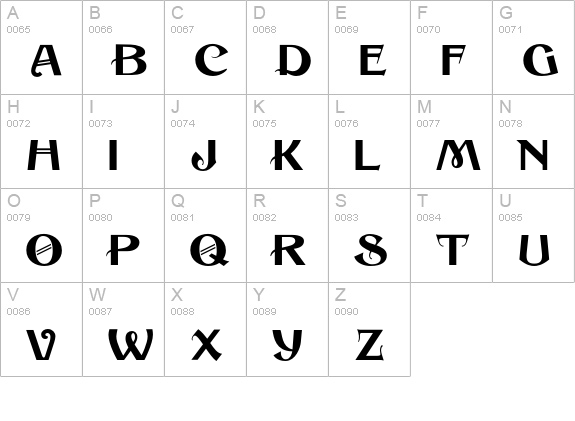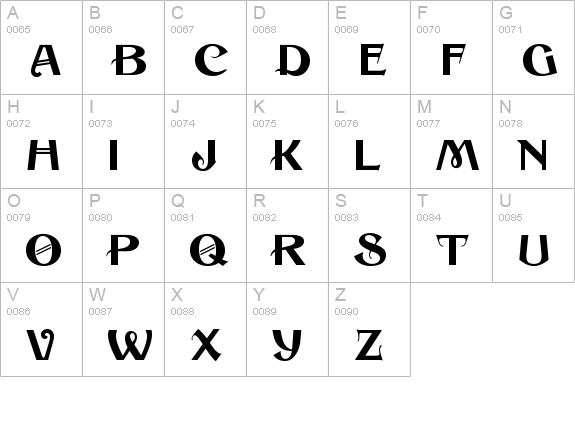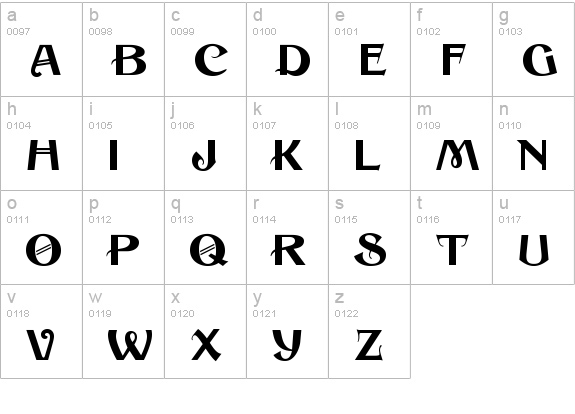
OPTISesame Font Details
OPTISesame is a stunning and versatile font that exudes elegance and sophistication. With its clean lines and modern aesthetic, this font is perfect for a wide range of design projects, from branding to editorial design. OPTISesame is designed to be both stylish and easy to read, making it a great choice for any application where clarity and visual appeal are important. What sets OPTISesame apart is that it is not only a beautiful font, but it is also freely available to download at FontsMarket.com. This means that you can add this gorgeous typeface to your collection without any cost, allowing you to elevate your designs without breaking the bank. Whether you are a professional designer or a hobbyist looking to spruce up your projects, OPTISesame is a fantastic choice that won't cost you a thing. Download it today and see the difference it can make in your designs!